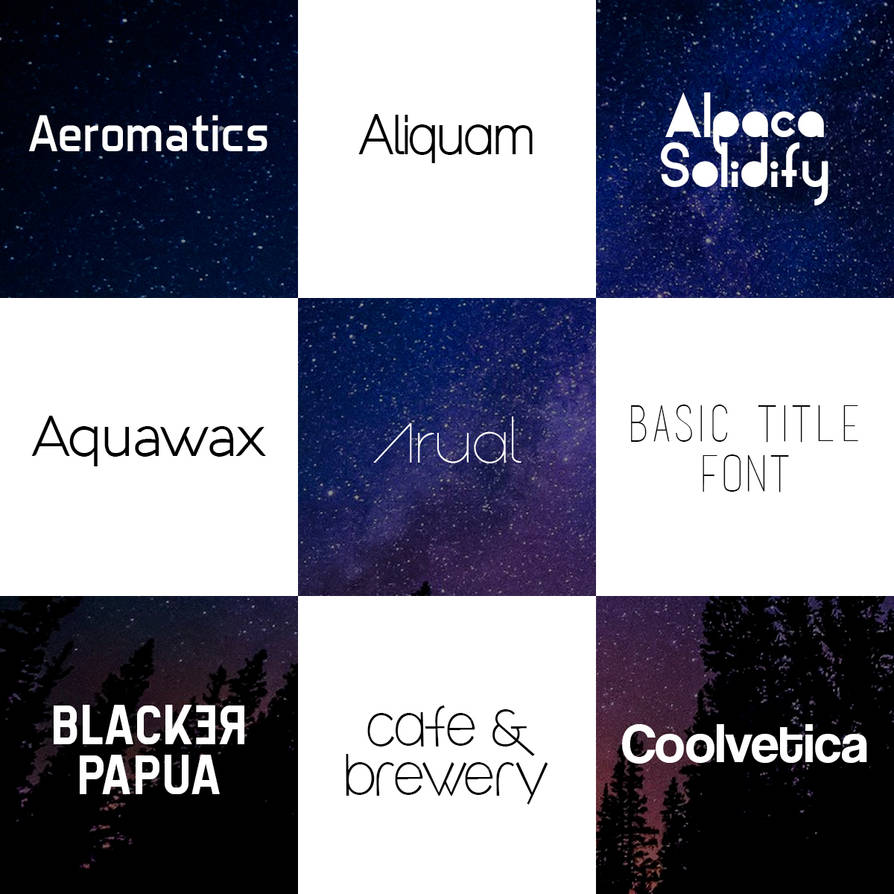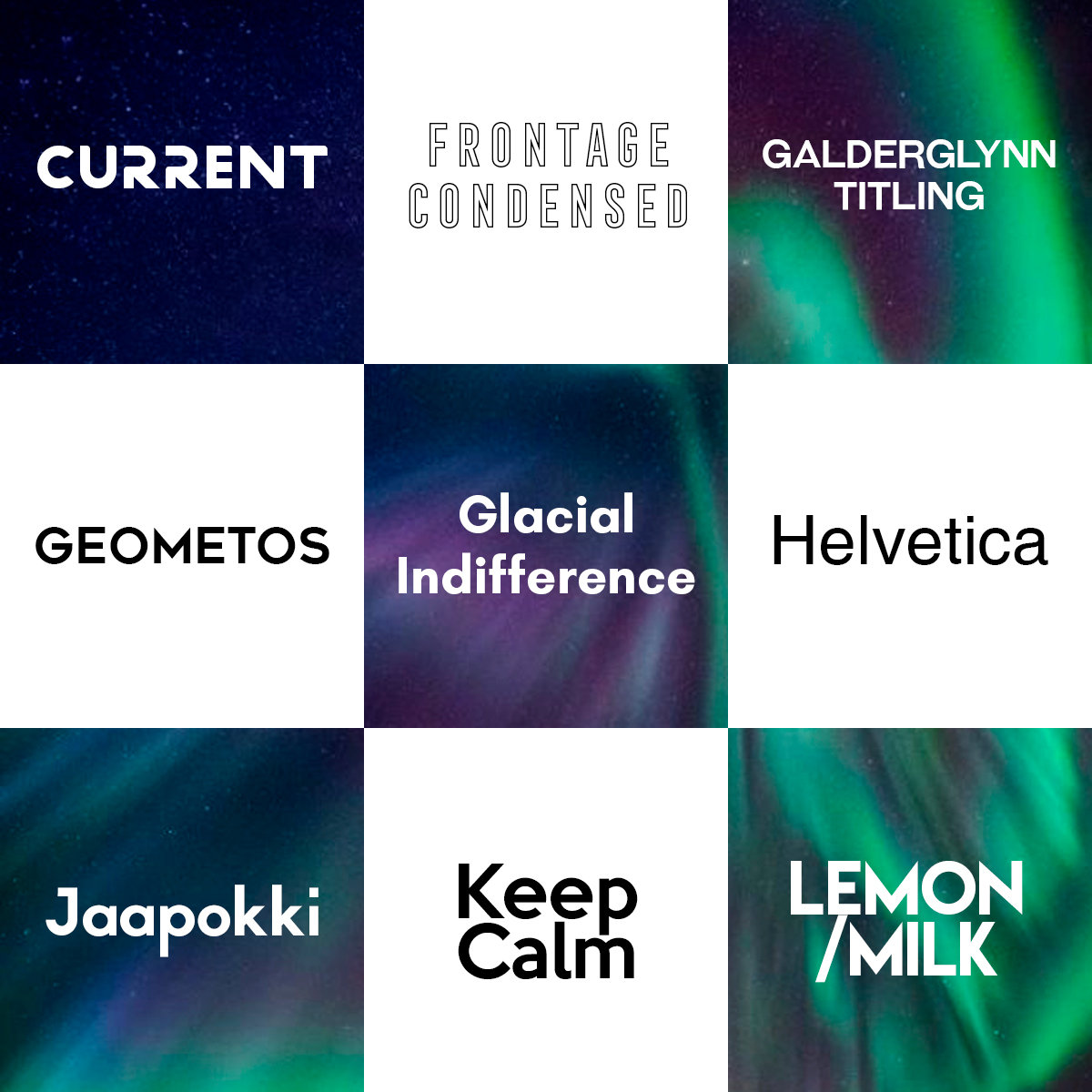
Fonts SVG PNG EPS DXF JPG AI Vector Qoutes File Sans Serif Font Pack Potoshop. The most common examples are arial and helvetica. Font name newest most downloads. Sans serif fonts, as you might already know, are the fonts with no projecting lines at the ends. Archive of freely downloadable fonts. Bonange basic serif font is a bold and elegant serif font. While serif fonts are known to be more traditional, sans serif fonts bring that much another condensed sans serif font, qontra by tomaz hrastar would work amazingly for any typographic application. Google fonts now supports variable fonts. The best selection of sans serif fonts for windows and macintosh. This font is equipped with uppercase, lowercase, numbers, punctuation, and several variations on each character. Recent fonts top fonts designers submit a font. Sans serif fonts are considered to be legible on computer screens and overwhelmingly used to convey simplicity and modernity. Browse by alphabetical listing, by style, by author or by popularity. A wealth of free sans serif fonts to find typography for websites, presentations, interfaces, print projects, and documents. Added by marlin fritsch (1 style). Demo donationware free free for personal use public domain, gpl, ofl shareware.
Free Quality Fonts Available For Download Fontsrepo. This font is equipped with uppercase, lowercase, numbers, punctuation, and several variations on each character. Browse by alphabetical listing, by style, by author or by popularity. Recent fonts top fonts designers submit a font. Google fonts now supports variable fonts. Bonange basic serif font is a bold and elegant serif font. The best selection of sans serif fonts for windows and macintosh. Archive of freely downloadable fonts. The most common examples are arial and helvetica. Sans serif fonts are considered to be legible on computer screens and overwhelmingly used to convey simplicity and modernity. Added by marlin fritsch (1 style). Font name newest most downloads. Demo donationware free free for personal use public domain, gpl, ofl shareware. While serif fonts are known to be more traditional, sans serif fonts bring that much another condensed sans serif font, qontra by tomaz hrastar would work amazingly for any typographic application. Sans serif fonts, as you might already know, are the fonts with no projecting lines at the ends. A wealth of free sans serif fonts to find typography for websites, presentations, interfaces, print projects, and documents.
Archive of freely downloadable fonts. It was designed to be metrically compatible with the ms sans bitmap font that shipped in early versions of microsoft windows. This font is equipped with uppercase, lowercase, numbers, punctuation, and several variations on each character. Google fonts now supports variable fonts. All fonts are categorized and can be saved for quick reference and comparison. While serif fonts are known to be more traditional, sans serif fonts bring that much another condensed sans serif font, qontra by tomaz hrastar would work amazingly for any typographic application. Archive of freely downloadable fonts. Recent fonts top fonts designers submit a font. Microsoft sans serif font is a very legible user interface (ui) font. See more ideas about fonts, font bundles, typeface. You can customize your experience with live font previews. Каллиграфические и скриптовые шрифты с кириллицей. Demo donationware free free for personal use public domain, gpl, ofl shareware. Sans serif fonts are considered to be legible on computer screens and overwhelmingly used to convey simplicity and modernity. Download the absurdly adorable font pack (29283) today! A brand new serif with a bonus sans for. We have a huge range of regular products available. Added by marlin fritsch (1 style). Sans serif fonts, as you might already know, are the fonts with no projecting lines at the ends. A wealth of free sans serif fonts to find typography for websites, presentations, interfaces, print projects, and documents. Source sans pro is a set of opentype fonts that have been designed to work well in user interface (ui) environments. The best selection of sans serif fonts for windows and macintosh. The most common examples are arial and helvetica. Browse by alphabetical listing, by style, by author or by popularity. Bonange basic serif font is a bold and elegant serif font. Font name newest most downloads. 143 free sans serif fonts.
Free Sans Serif Fonts Creativebooster. Archive of freely downloadable fonts. A wealth of free sans serif fonts to find typography for websites, presentations, interfaces, print projects, and documents. Browse by alphabetical listing, by style, by author or by popularity. Google fonts now supports variable fonts. The best selection of sans serif fonts for windows and macintosh. Added by marlin fritsch (1 style). Recent fonts top fonts designers submit a font. This font is equipped with uppercase, lowercase, numbers, punctuation, and several variations on each character. Demo donationware free free for personal use public domain, gpl, ofl shareware. Bonange basic serif font is a bold and elegant serif font. The most common examples are arial and helvetica. Font name newest most downloads. Sans serif fonts, as you might already know, are the fonts with no projecting lines at the ends. While serif fonts are known to be more traditional, sans serif fonts bring that much another condensed sans serif font, qontra by tomaz hrastar would work amazingly for any typographic application. Sans serif fonts are considered to be legible on computer screens and overwhelmingly used to convey simplicity and modernity.
Source sans pro is a set of opentype fonts that have been designed to work well in user interface (ui) environments.
60 Free Sans Serif Fonts To Give Your Designs A Modern Touch. A wealth of free sans serif fonts to find typography for websites, presentations, interfaces, print projects, and documents. Font name newest most downloads. Recent fonts top fonts designers submit a font. Archive of freely downloadable fonts. This font is equipped with uppercase, lowercase, numbers, punctuation, and several variations on each character. Browse by alphabetical listing, by style, by author or by popularity. While serif fonts are known to be more traditional, sans serif fonts bring that much another condensed sans serif font, qontra by tomaz hrastar would work amazingly for any typographic application. Demo donationware free free for personal use public domain, gpl, ofl shareware. Bonange basic serif font is a bold and elegant serif font. Sans serif fonts, as you might already know, are the fonts with no projecting lines at the ends. Added by marlin fritsch (1 style). Google fonts now supports variable fonts. The best selection of sans serif fonts for windows and macintosh. The most common examples are arial and helvetica. Sans serif fonts are considered to be legible on computer screens and overwhelmingly used to convey simplicity and modernity.
Bonange basic serif font is a bold and elegant serif font.
60 Free Sans Serif Fonts To Give Your Designs A Modern Touch. Recent fonts top fonts designers submit a font. Demo donationware free free for personal use public domain, gpl, ofl shareware. Added by marlin fritsch (1 style). The best selection of sans serif fonts for windows and macintosh. Browse by alphabetical listing, by style, by author or by popularity. Font name newest most downloads. Sans serif fonts are considered to be legible on computer screens and overwhelmingly used to convey simplicity and modernity. Google fonts now supports variable fonts. Archive of freely downloadable fonts. While serif fonts are known to be more traditional, sans serif fonts bring that much another condensed sans serif font, qontra by tomaz hrastar would work amazingly for any typographic application. A wealth of free sans serif fonts to find typography for websites, presentations, interfaces, print projects, and documents. Sans serif fonts, as you might already know, are the fonts with no projecting lines at the ends. This font is equipped with uppercase, lowercase, numbers, punctuation, and several variations on each character. The most common examples are arial and helvetica. Bonange basic serif font is a bold and elegant serif font.
Microsoft sans serif font is a very legible user interface (ui) font.
60 Free Sans Serif Fonts To Give Your Designs A Modern Touch. While serif fonts are known to be more traditional, sans serif fonts bring that much another condensed sans serif font, qontra by tomaz hrastar would work amazingly for any typographic application. Sans serif fonts are considered to be legible on computer screens and overwhelmingly used to convey simplicity and modernity. Added by marlin fritsch (1 style). Recent fonts top fonts designers submit a font. Font name newest most downloads. Bonange basic serif font is a bold and elegant serif font. Google fonts now supports variable fonts. The most common examples are arial and helvetica. Archive of freely downloadable fonts. Browse by alphabetical listing, by style, by author or by popularity. The best selection of sans serif fonts for windows and macintosh. A wealth of free sans serif fonts to find typography for websites, presentations, interfaces, print projects, and documents. Demo donationware free free for personal use public domain, gpl, ofl shareware. Sans serif fonts, as you might already know, are the fonts with no projecting lines at the ends. This font is equipped with uppercase, lowercase, numbers, punctuation, and several variations on each character.
Microsoft sans serif font is a very legible user interface (ui) font.
60 Free Sans Serif Fonts To Give Your Designs A Modern Touch. A wealth of free sans serif fonts to find typography for websites, presentations, interfaces, print projects, and documents. While serif fonts are known to be more traditional, sans serif fonts bring that much another condensed sans serif font, qontra by tomaz hrastar would work amazingly for any typographic application. Browse by alphabetical listing, by style, by author or by popularity. Archive of freely downloadable fonts. Added by marlin fritsch (1 style). Recent fonts top fonts designers submit a font. Google fonts now supports variable fonts. Sans serif fonts are considered to be legible on computer screens and overwhelmingly used to convey simplicity and modernity. Demo donationware free free for personal use public domain, gpl, ofl shareware. Sans serif fonts, as you might already know, are the fonts with no projecting lines at the ends. The best selection of sans serif fonts for windows and macintosh. Font name newest most downloads. Bonange basic serif font is a bold and elegant serif font. This font is equipped with uppercase, lowercase, numbers, punctuation, and several variations on each character. The most common examples are arial and helvetica.
Free Sans Serif Fonts Creativebooster. Demo donationware free free for personal use public domain, gpl, ofl shareware. Google fonts now supports variable fonts. Sans serif fonts, as you might already know, are the fonts with no projecting lines at the ends. Font name newest most downloads. The most common examples are arial and helvetica. A wealth of free sans serif fonts to find typography for websites, presentations, interfaces, print projects, and documents. Added by marlin fritsch (1 style). Browse by alphabetical listing, by style, by author or by popularity. Sans serif fonts are considered to be legible on computer screens and overwhelmingly used to convey simplicity and modernity. Bonange basic serif font is a bold and elegant serif font. Recent fonts top fonts designers submit a font. While serif fonts are known to be more traditional, sans serif fonts bring that much another condensed sans serif font, qontra by tomaz hrastar would work amazingly for any typographic application. This font is equipped with uppercase, lowercase, numbers, punctuation, and several variations on each character. Archive of freely downloadable fonts. The best selection of sans serif fonts for windows and macintosh.
We have a huge range of regular products available. This font is equipped with uppercase, lowercase, numbers, punctuation, and several variations on each character. Archive of freely downloadable fonts. A brand new serif with a bonus sans for. All fonts are categorized and can be saved for quick reference and comparison. It was designed to be metrically compatible with the ms sans bitmap font that shipped in early versions of microsoft windows. Download the absurdly adorable font pack (29283) today! The most common examples are arial and helvetica. Bonange basic serif font is a bold and elegant serif font. See more ideas about fonts, font bundles, typeface.